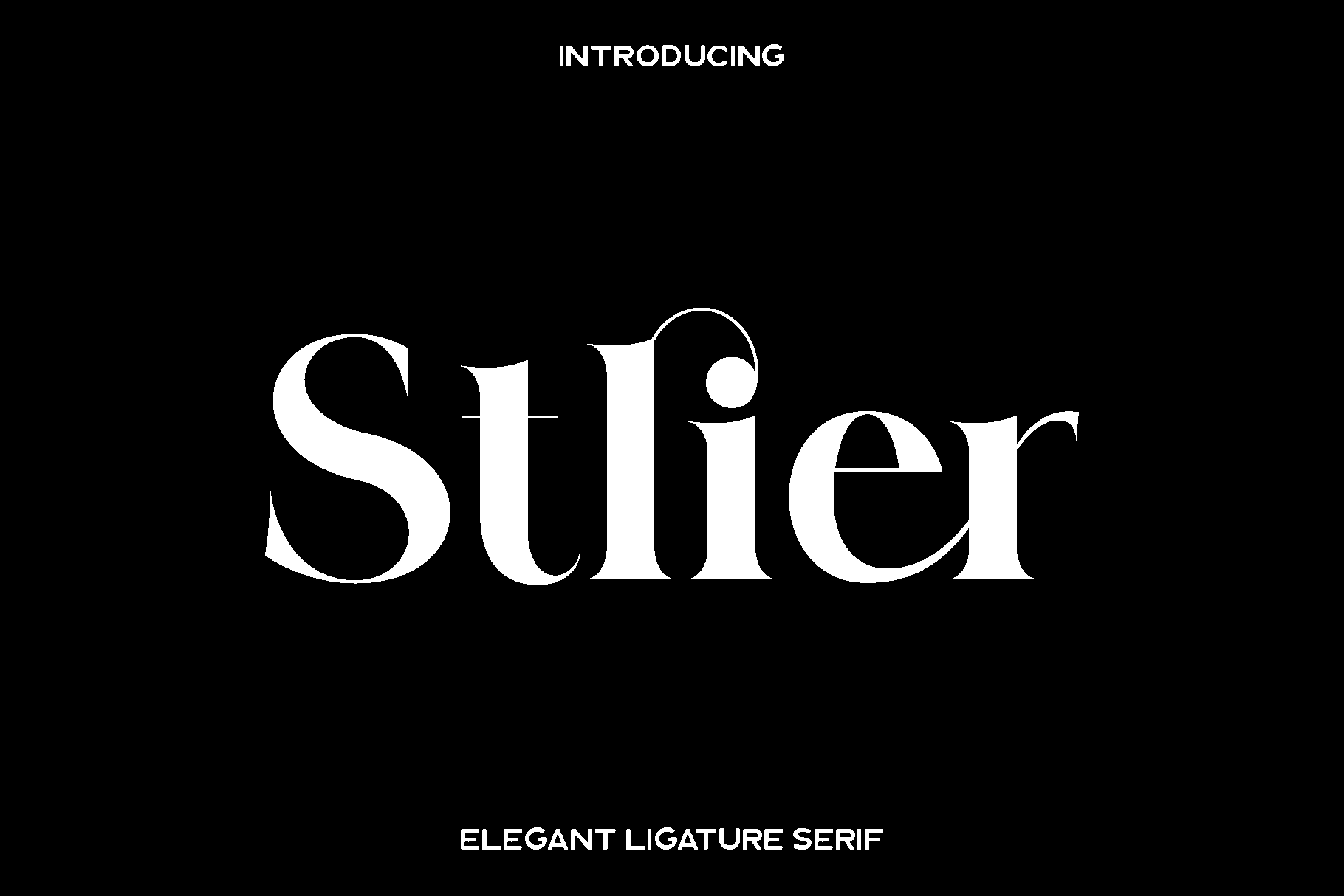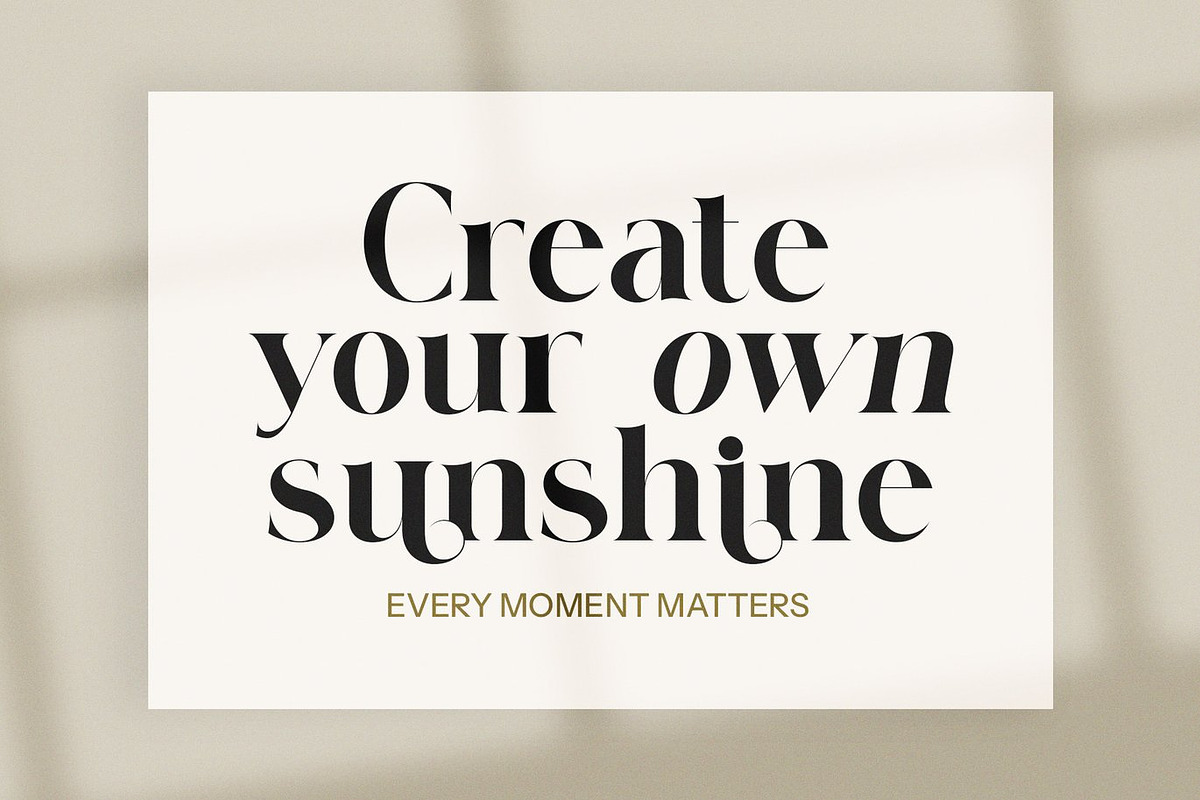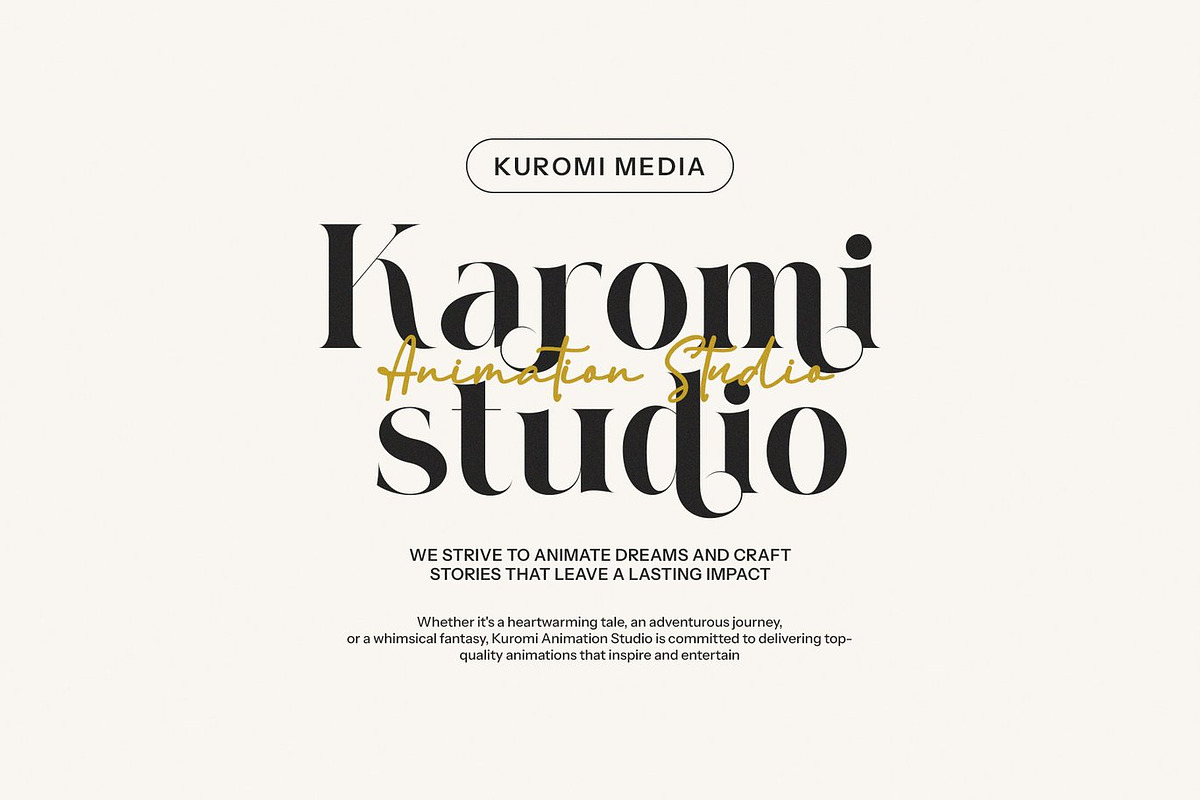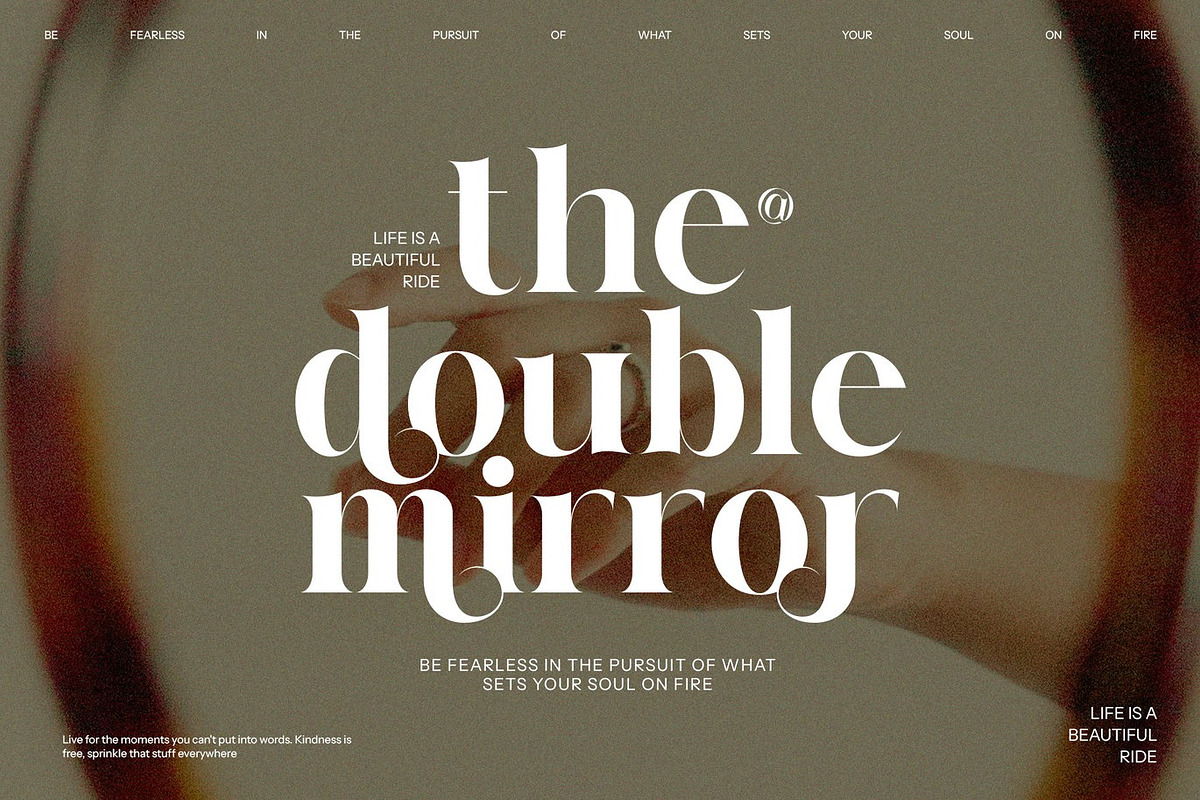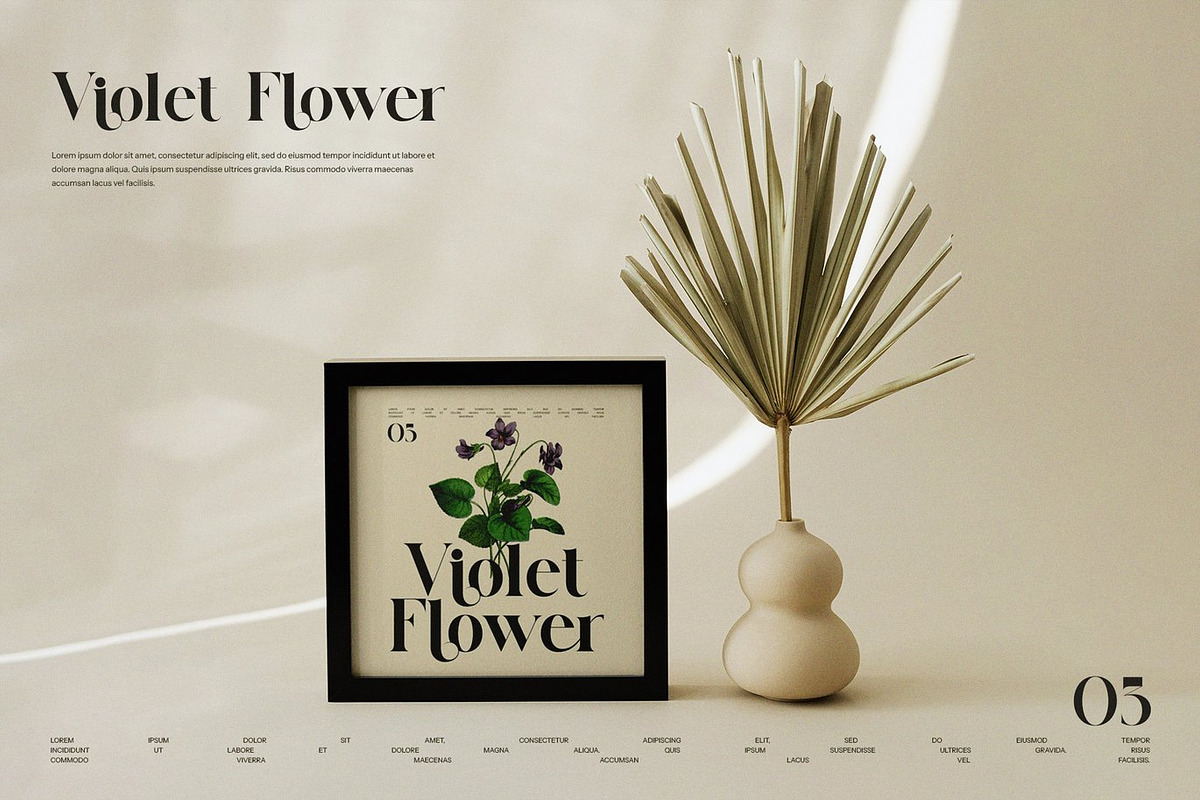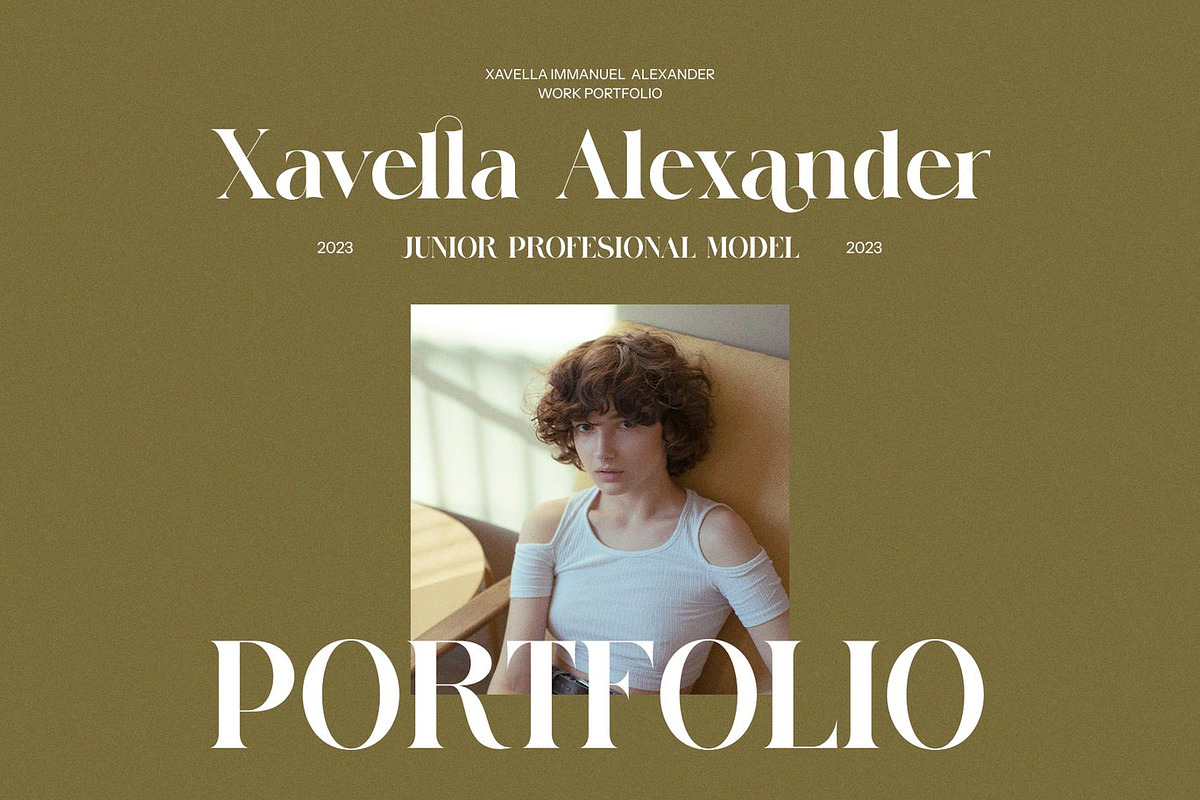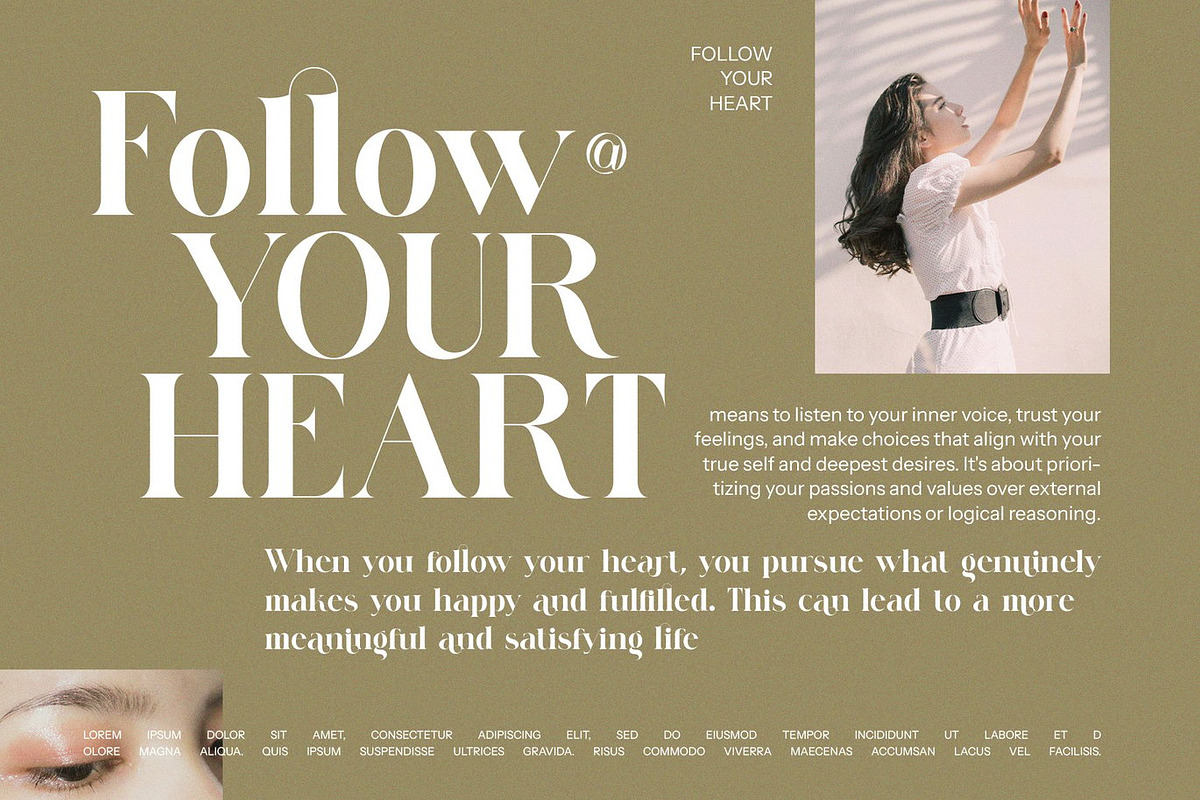
Stlier - Luxury Serif Font
Stlier is a refined serif font created for designers who appreciate elegance, sophistication, and timeless style. Built with smooth curves, sharp details, and a luxurious presence, Stlier brings a high end aesthetic to any project. Each character is crafted to feel both classic and modern, giving your work a polished look that stands out with confidence and clarity. Its graceful structure makes it a perfect choice for branding and design projects that require a touch of class.
Stlier shines in logo creation, wedding stationery, product packaging, advertisements, photography overlays, and stylish social media content. Its excellent legibility and balanced proportions make it suitable for both large, eye catching headlines and fine, delicate elements. Whether you are building a premium brand identity or designing elegant invitations, Stlier elevates your compositions with beauty and sophistication.
With its luxurious character and versatile design, Stlier adapts beautifully to a wide range of creative needs. It delivers a sense of refinement that enhances every detail and ensures your designs leave a memorable impression. This font is ideal for creators who want a typeface that embodies professionalism, elegance, and artistic charm.
Stlier Font Features:
• Standard characters
• Numbers and punctuation
• Accented characters for Western Europe